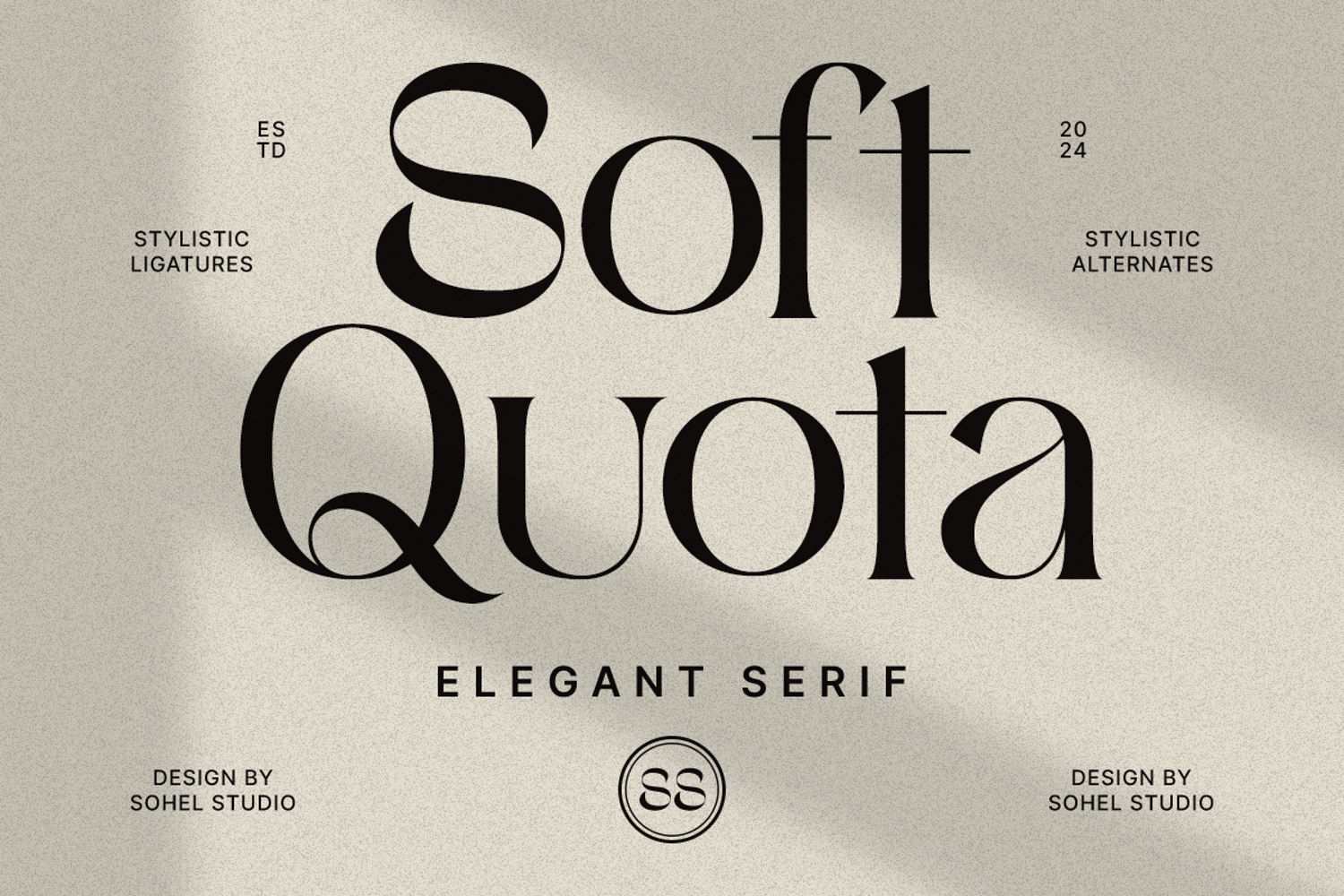
Soft Quota - Timeless Elegant Serif
Soft Quota is an elegant serif font designed by Sohel Studio to bring both modern and classic touches into one style. The font features bold yet smooth letterforms, with stylistic ligatures and alternates that add a unique flair to every design project. Soft Quota is perfect for branding, logos, editorials, wedding invitations, luxury packaging, and more. This font supports multiple languages and is ready to elevate your visual design with a professional and exclusive feel.
• Timeless Serif Style: Adds a touch of sophistication to any project.
• Unique Alternates: Provides creative flexibility and uniqueness.
• Versatile Use: Ideal for branding, invitations, magazines, logos, and more.
• High-End Aesthetic: Perfect for luxury and refined design projects.
• Full Set of Characters: Uppercase, lowercase, numerals, punctuation, and symbols.
• Unique Alternates: For creating distinctive and personalized designs.
• Multilingual Support: Includes characters for multiple languages.
• Bonus Glyphs: Additional decorative elements to enhance your designs.